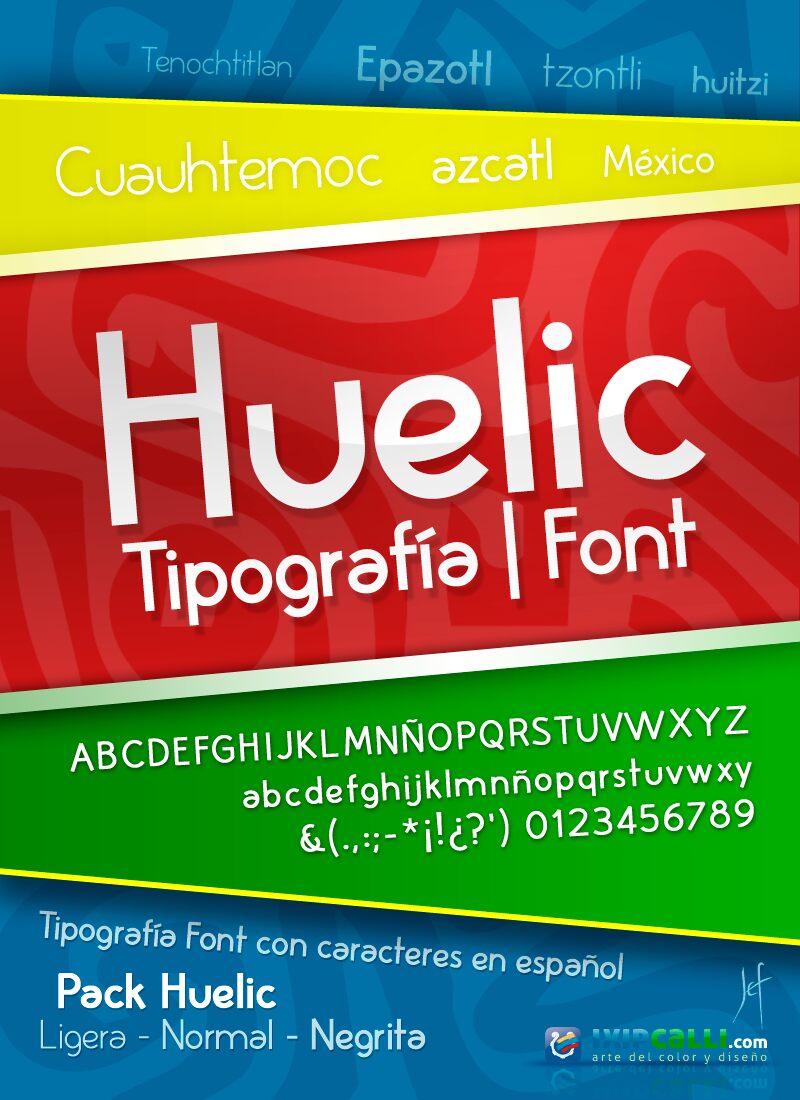
Huelic Bold
Huelic Bold by Ixipcalli is a free experimental sans serif with tall proportions, broad curves, and pronounced shifts between thick and thin strokes. Its irregular angles and slightly tilted uprights keep the lettering lively, while the open shapes and rounded forms retain a clean, graphic silhouette.
Experimental modernist graphics suit it best, particularly posters and album covers. Packaging, fashion branding, and arts publishing can use its offbeat geometry as a recurring motif, linking product names and editorial titles through the same angular, oversized forms.